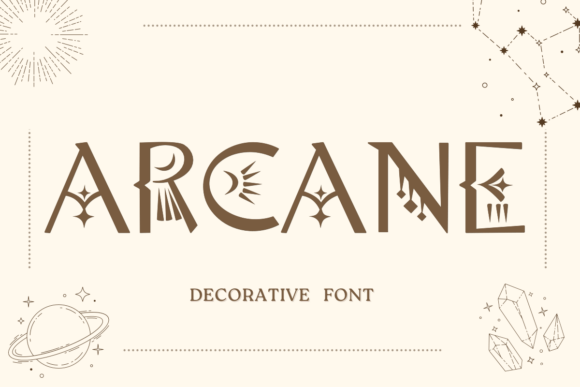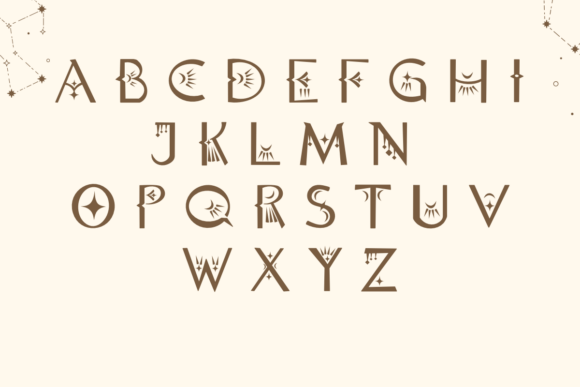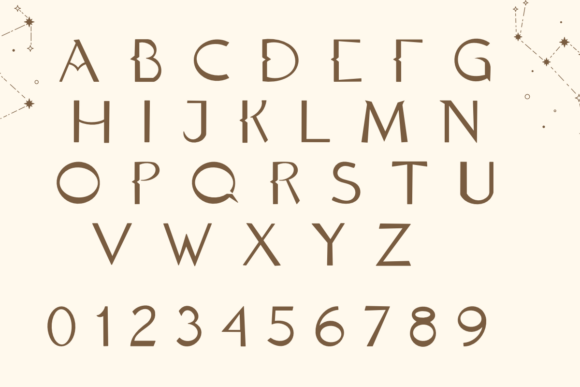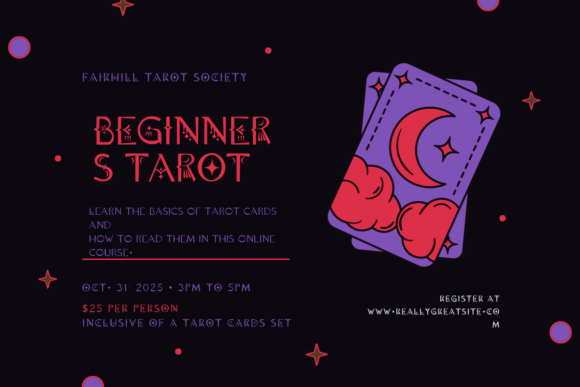
Arcane Font: Mystic Decorative Font for Boho Branding & Social Media
About the Arcane Font
Elevate your designs with Arcane Font, a font that combines sophistication with readability. Arcane is a Decorative font . You can use it for taking notes, writing a diary, or making greeting cards. However, you can still use it for other designs, such as banners, content, mugs, cards, shirts, stationery, social media posts, and more!
Arcane’s decorative nature makes it ideal for headlines, short text blocks on posters or packaging, and branding elements requiring a touch of whimsy. It excels in creating eye-catching logos and short, impactful statements. However, its ornate details make it unsuitable for body text or UI elements where readability is paramount; long paragraphs set in Arcane would be difficult to read.
The font’s personality is playful yet sophisticated. It works best for brands that want to project a sense of fun and creativity but maintain a level of elegance. Consider pairing Arcane with a clean sans-serif like Montserrat for a balanced contrast, or a classic serif such as Garamond for a more traditional feel. A geometric sans-serif could add a modern edge.
For a truly unique look, a handwritten script font could complement Arcane’s decorative flourishes, provided the script is relatively legible and doesn’t overpower the display element.